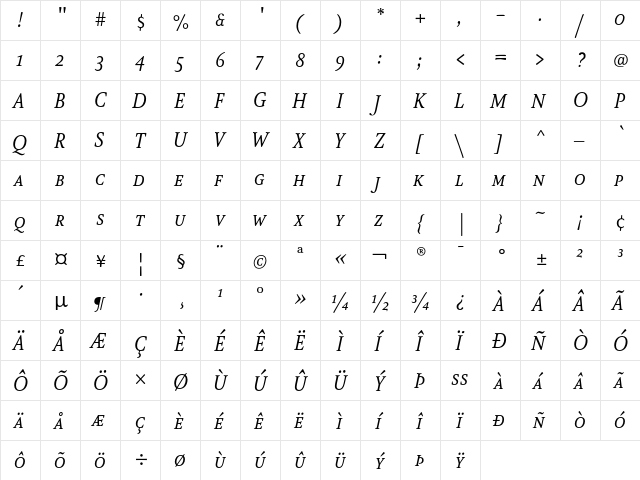
AtmaSerif-BookItalicMC Regular
Design Context for AtmaSerif-BookItalicMC Typeface
AtmaSerif-BookItalicMC carries the refined structure of traditional serif typography, with bracketed terminals and considered proportions that communicate credibility and craft. The dynamic lean of this cut emphasises speed and emphasis in any layout.